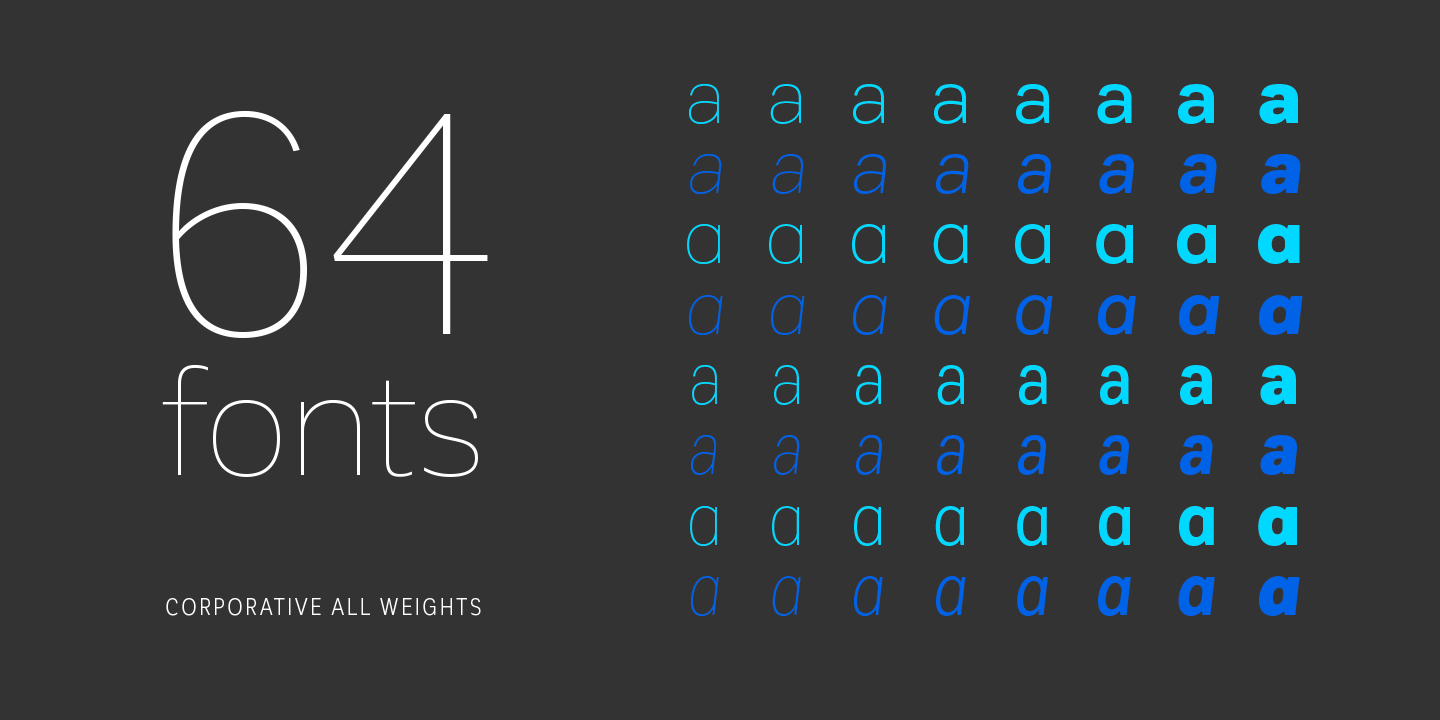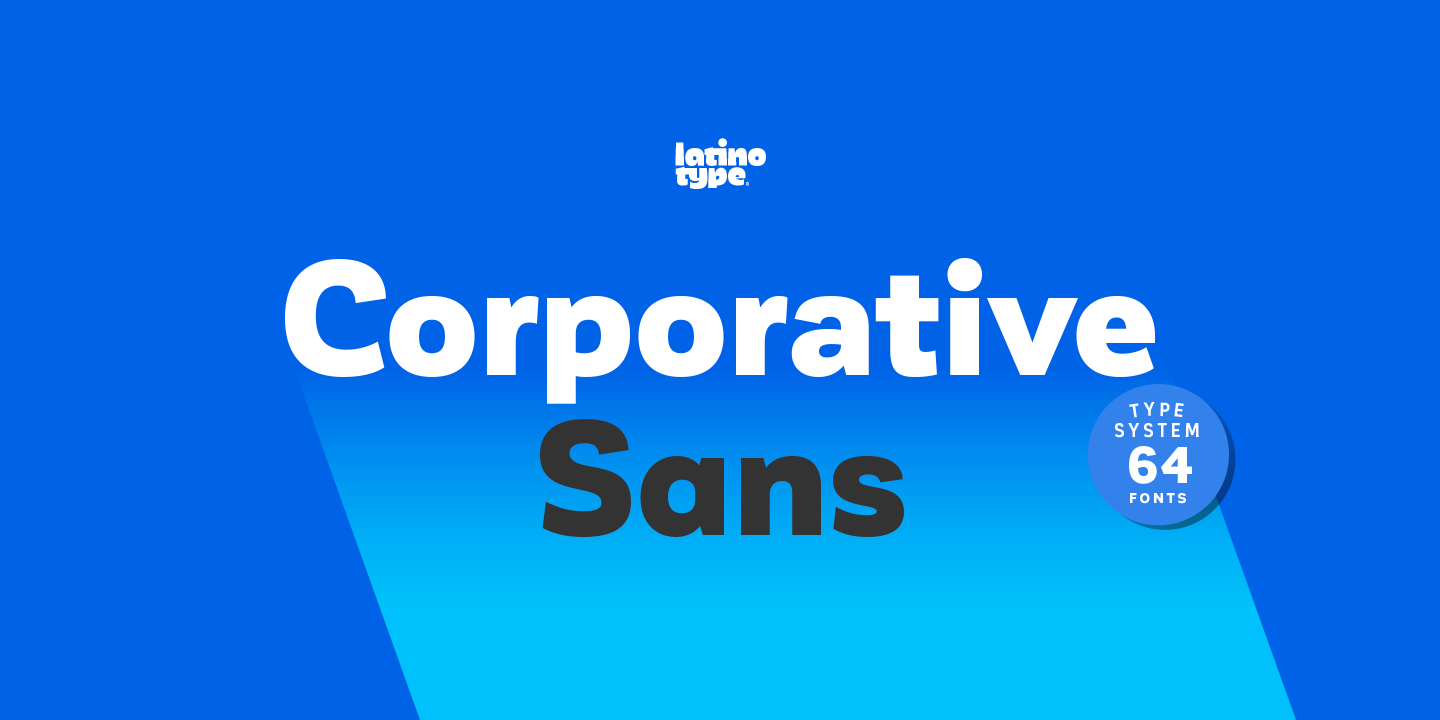
Corporative Sans Alt Essential Family (8 fonts)
Corporative Sans typeface is developed by Latinotype Team. Corporative Sans is the new version of Corporative. This font has a marked personality and distinctive traits, what makes it suitable to be used at large text sizes. Since it is a condensed font, it can also be used in smaller sizes. Corporative comes with the Latinotype’s standard set of 350 characters, making it possible to use the font in 128 different languages. Corporative provides users with a wide range of characters, weights and widths for every project. By combining different variants, designers can achieve the best results. Latinotype has added new faces to its team. Latinotype Team now comprises: Rodrigo Fuenzalida, César Araya, Bruno Jara, Luciano Vergara and Daniel Hernández. Corporative was created by Latinotype Team and developed by Javier Quintana, Rodrigo Fuenzalida and César Araya, under the supervision of Luciano Vergara and Daniel Hernández.